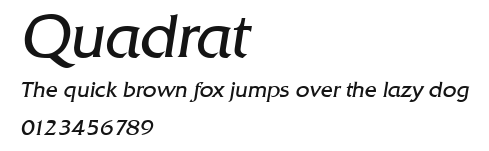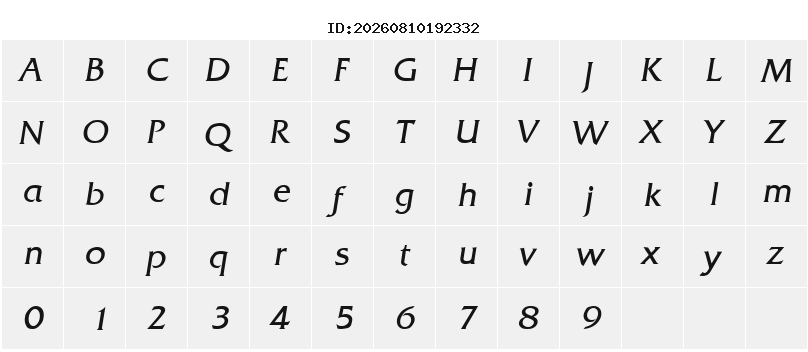
Quadrat.ttf is a modern, elegant sans-serif font designed for ultimate readability and visual harmony. Perfect for branding, headlines, web design, and print materials.